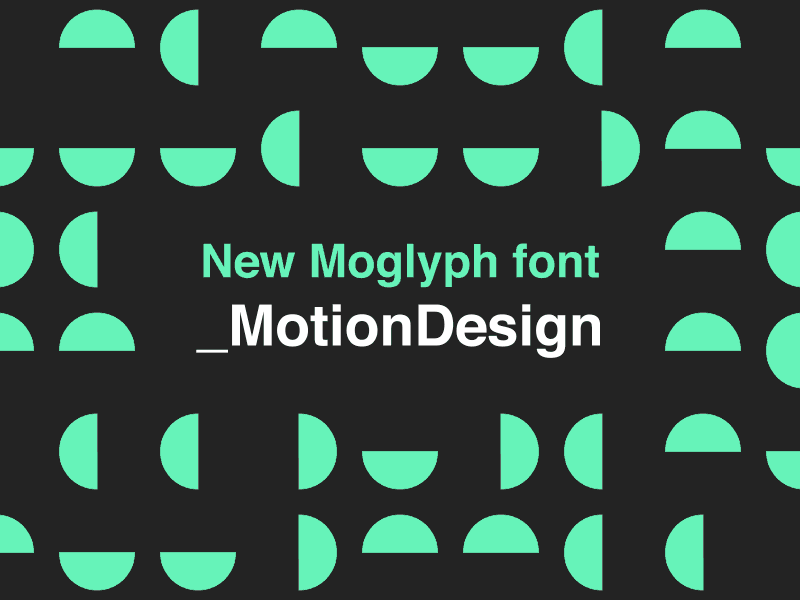
New MoglyphFX "Motion Design" Font !
New font to use in my MoglyphFX tool ! This is the second added font among an upgrowing list I will update as often as possible, and it's called "Moglyph-MotionDesign".
It contains exactly 100 carefully hand crafted glyphs (bold techy shapes, rounded and square corners, patterns, thin stroke elements and even some AE keyframes !) that will be really useful for motion design, UI and glitchy animations . More fun glyph fonts to come :) Purchase Moglyph FX here : https://aescripts.com/moglyph-fx/